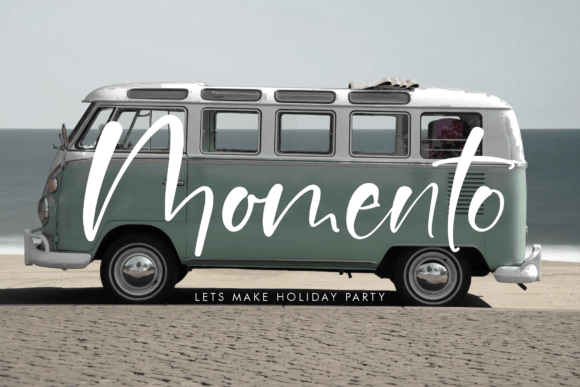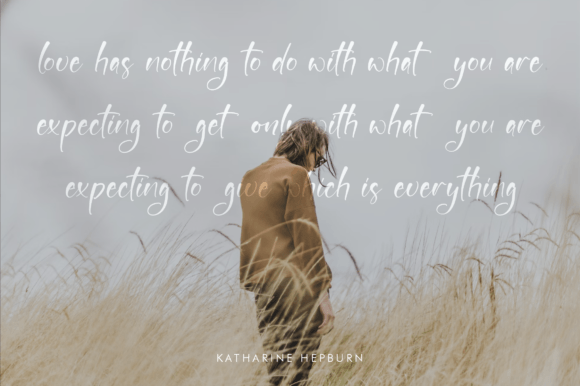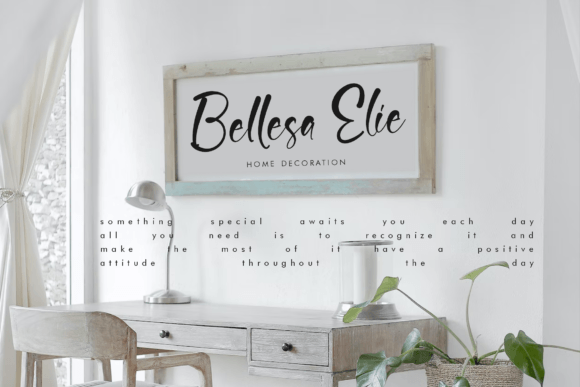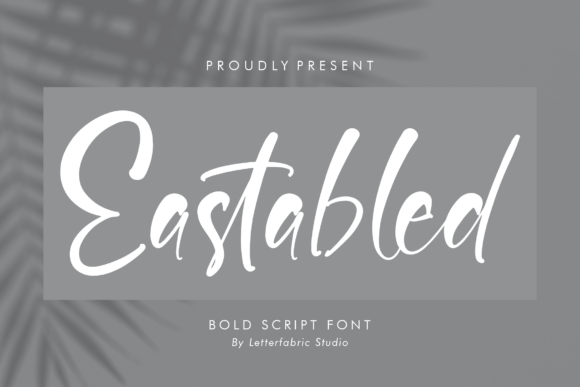
Introduction to Eastabled Font
Eastabled is a flowing handwritten font, described by an elegant touch, perfect for your favorite projects.
Why Choose Eastabled Font?
Eastabled Font offers exceptional quality and versatility, making it a valuable addition to your design toolkit. Whether you’re creating for personal projects or commercial use, Eastabled Font delivers professional results.